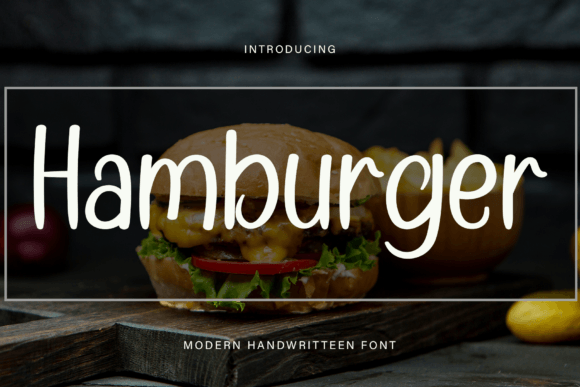
Feast your eyes on Hamburger Font – a true masterpiece that dances off the page with its captivating presence. This stunning script font family is the brainchild of the brilliant pinkmeca, designed to take your creative visions to new heights. Immerse yourself in the world of movies and let the essence of cinema flow through your designs.
Picture this: the credits rolling at the end of a captivating movie and the Hamburger Font gracing the screen, leaving an unforgettable impact on the audience. With its undeniable charm, this font transports you to the silver screen, adding a touch of Hollywood glamour to your projects. Whether you're a seasoned designer or just starting, Hamburger Font is your ticket to creating designs that speak volumes.
Elevate your digital designs to cinematic masterpieces with Hamburger Font. Unleash your creativity and let the words dance across the virtual canvas. From striking logos that command attention to breathtaking posters that tell a story, Hamburger Font effortlessly transforms your designs into works of art. Experience the thrill of crafting presentations that captivate audiences and leave them spellbound.
But Hamburger Font's magic extends far beyond the digital realm. It's the perfect companion for your crafting endeavors too. Enchant your handmade greeting cards with heartfelt messages written in Hamburger Font. Design invitations that set the stage for unforgettable events. Transform ordinary objects into extraordinary creations with the power of Hamburger Font.
No matter the occasion, Hamburger Font is your trusted companion, ready to add a touch of cinematic magic to your designs. It's a font that sparks conversations, ignites imaginations, and leaves a lasting impression. Let your creativity take center stage and let Hamburger Font do the rest.